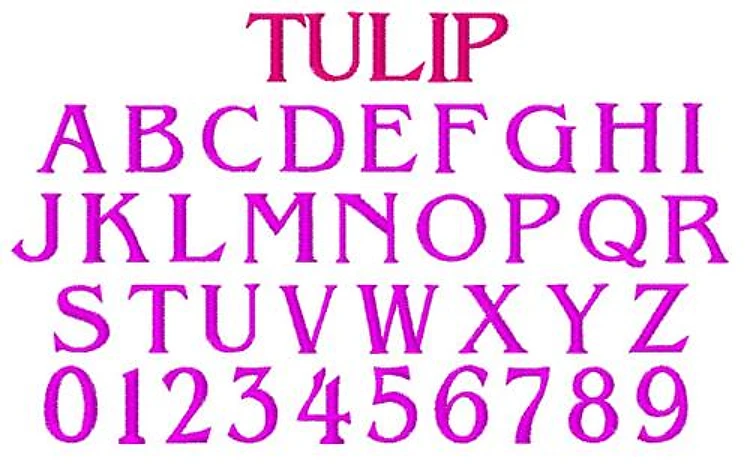
Internet Stitch is happy to present Tulip machine embroidery font which has Bold pink machine embroidery font displaying 'TULIP' in a fill style, suitable for clear stitching on garments and accessories. Available in ELP format. included. If you would like to view more embroidery fonts and alphabets please search our embroidery fonts page.